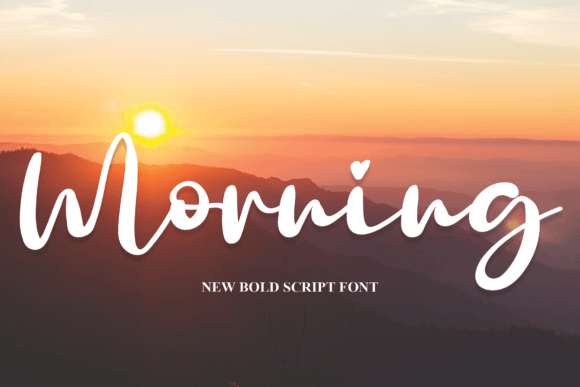
About Morning Font
Introducing Morning, a sweet and cursive handwritten font designed to bring a gentle and romantic touch to your creative projects. This font exudes a joyful and elegant vibe, making it a perfect fit for branding, logos, wedding materials, greeting cards, fashion, lookbooks, and marketing promotions. Morning adds a fancy yet casual elegance to your designs, making them stand out with a touch of sophistication.
The cursive and handwritten style of Morning imparts a sense of warmth and personal touch to your text. With gentle curves and flowing strokes, this font creates an elegant appearance that adapts seamlessly to various design applications.
Imagine using Morning for wedding invitations, where its romantic and cursive font enhances the overall elegance and charm of the event. In branding or logos, this font adds a touch of sophistication, making your brand or business appear both fancy and approachable.
For fashion-related projects, lookbooks, or marketing promotions, Morning’s elegant and casual style shines, making your designs stand out with a sense of grace. The versatility of this font allows it to fit into different contexts and design needs.
Whether you’re creating digital or print materials, Morning is ready to be the sweet and cursive font that elevates the visual appeal of your projects. Its ability to strike a balance between fancy elegance and casual charm makes it a valuable asset for a variety of creative endeavors.
In conclusion, Morning is more than just a font; it’s a design tool that invites you to infuse your projects with a sweet and romantic touch. Whether you’re working on branding, wedding invitations, or fashion-related designs, Morning is prepared to be the cursive and elegant font that enhances the overall beauty of your creative work.